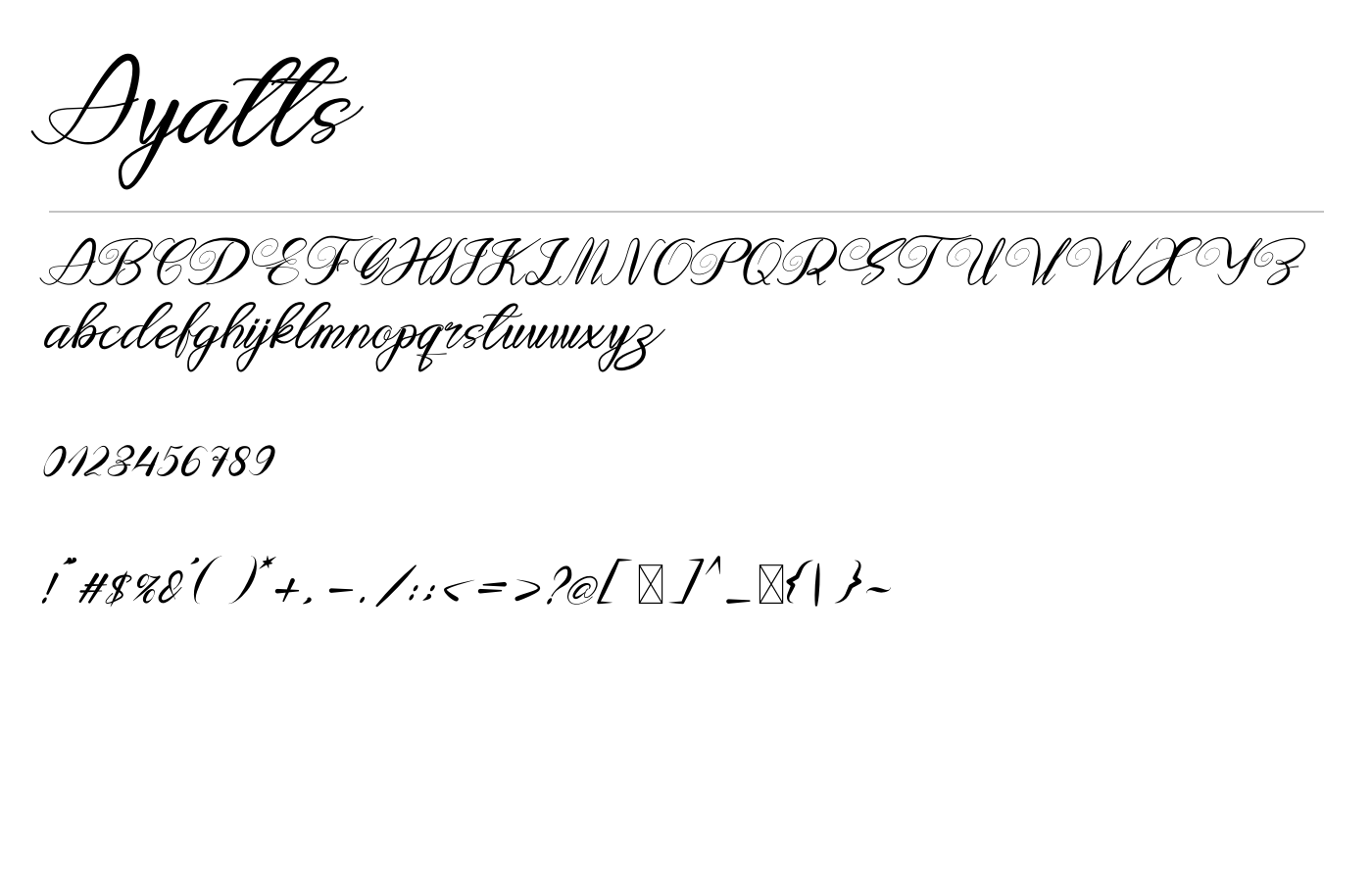
Ayatts is an elegant script font featuring delicate, flowing letterforms with a graceful, handwritten style. Its fine strokes and smooth curves make it ideal for sophisticated branding, invitations, and stylish headlines where a touch of classic charm and femininity is desired. This font works best in designs that require an elegant, refined appearance with a personal, artisanal feel.
Ayatts Font